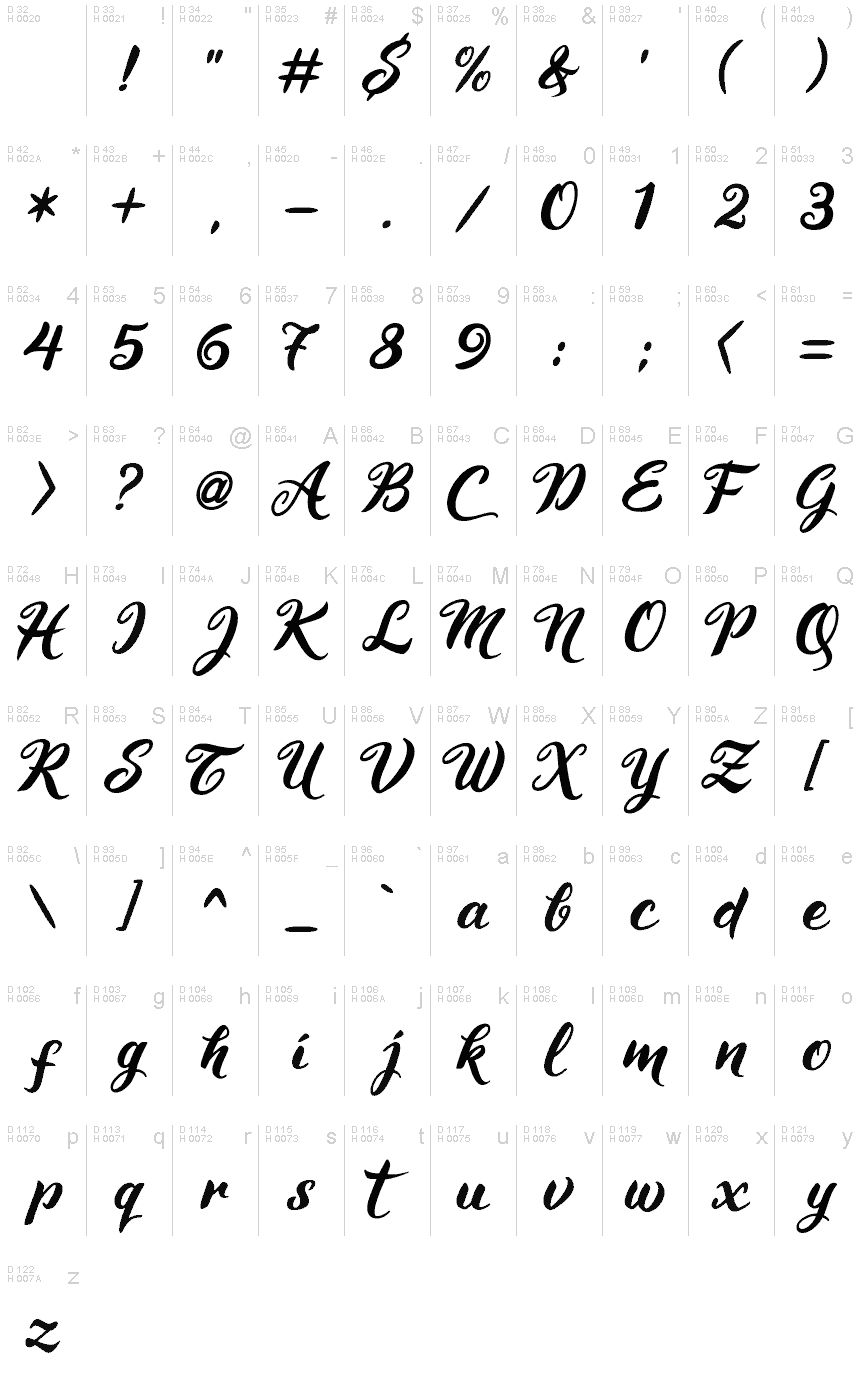
Maheera
Maheera is a bold, smooth brush font that exudes a sense of grace and sophistication. Crafted by designer Cundrawan, this typeface boasts fluid, expressive strokes that lend a touch of elegance to any design.
Its bold presence makes it an ideal choice for headings, titles, and branding applications, where it can command attention and convey a strong visual identity.
Maheera's versatility extends beyond formal settings, as its organic, handwritten-inspired aesthetic could also find a home in editorial layouts, packaging designs, and even personal projects that call for a touch of artistry.